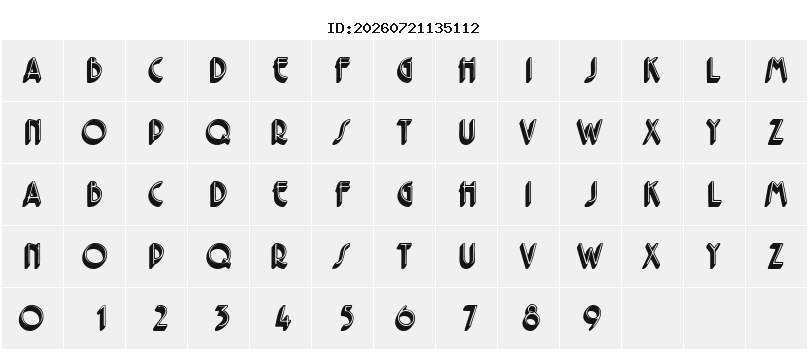
• Font Name: FerioDisplayCapsSSi
• Full Font Name: FerioDisplayCapsSSi
About FerioDisplayCapsSSi.ttf
FerioDisplayCapsSSi.ttf is a modern, elegant sans-serif font designed for ultimate readability and visual harmony. Perfect for branding, headlines, web design, and print materials.